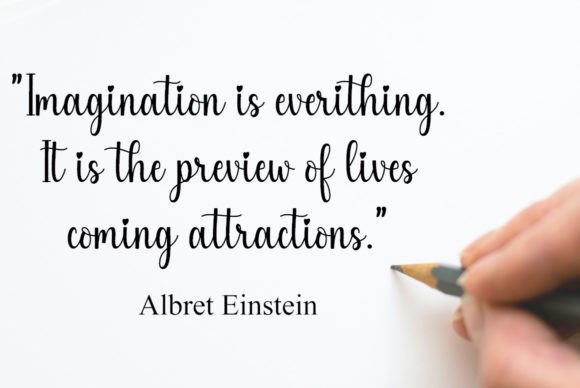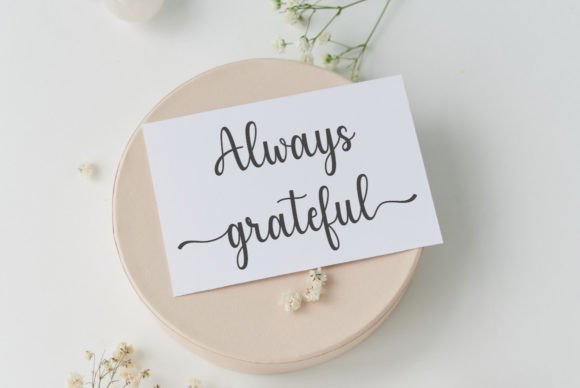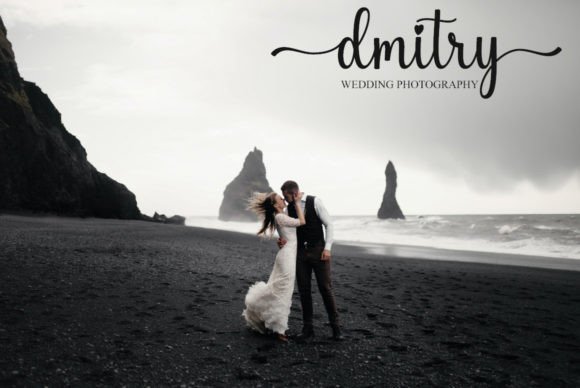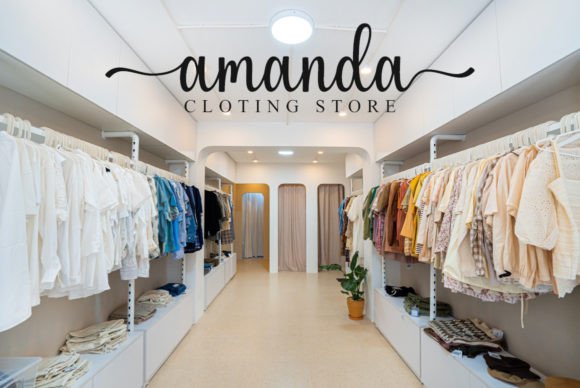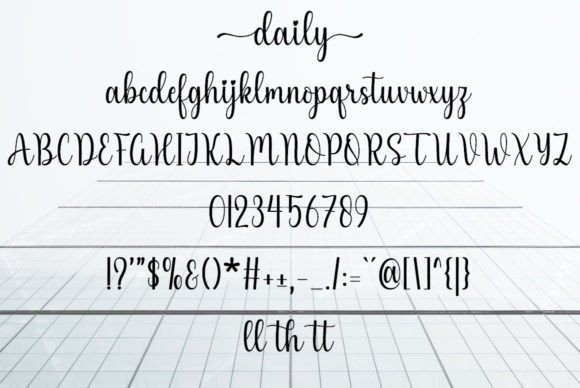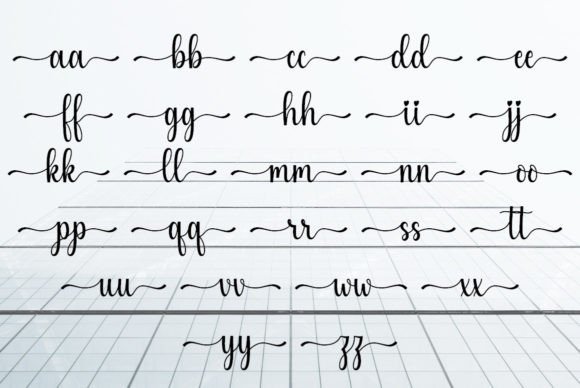
Introducing Daily Font: Elevate Your Designs with Elegance and Sophistication
In the world of typography, a well-crafted font can make all the difference in transforming a design from ordinary to extraordinary. For designers and crafters seeking to add a touch of elegance and sophistication to their projects, Daily Font is an exceptional choice. This stylish and incredibly elegant handwritten font is perfect for a variety of applications, from wedding invitations and thank you cards to quotes, greeting cards, logos, business cards, and more.
The Characteristics of Daily Font
Daily Font boasts a unique, handwritten aesthetic that exudes refinement and poise. Its elegant strokes and carefully crafted letterforms make it an ideal choice for designs that require a personal touch. Whether you’re creating wedding stationery, branding materials, or social media graphics, Daily Font is sure to impress.
One of the standout features of Daily Font is its PUA (Private Use Area) encoding. This means that users can easily access a wide range of glyphs and alternates, allowing for greater flexibility and creativity in their designs. With Daily Font, you can effortlessly customize your text to suit your project’s specific needs.
Daily Font’s versatility makes it an excellent addition to any designer’s toolkit. Here are just a few examples of how you can use this beautiful font:
- Wedding Invitations: Add a touch of romance and sophistication to your wedding stationery with Daily Font. Its elegant script is perfect for formal and informal wedding invitations alike.
- Thank You Cards: Express your gratitude in style with Daily Font. Its beautiful letterforms make it ideal for handwritten-style thank you cards and notes.
- Quotes and Graphics: Use Daily Font to create stunning quote graphics for social media, blogs, or marketing materials. Its elegant script adds a touch of sophistication to any quote or message.
- Greeting Cards: From birthday cards to holiday greetings, Daily Font is perfect for creating beautiful, handmade-style greeting cards.
- Logos and Branding: Establish your brand’s identity with Daily Font. Its unique, handwritten aesthetic can help your business stand out from the crowd.
- Business Cards: Make a lasting impression with Daily Font on your business cards. Its elegant script conveys professionalism and sophistication.
Why Choose Daily Font?
With so many fonts available, why choose Daily Font for your design projects? Here are just a few reasons:
- Elegant and Sophisticated: Daily Font’s unique, handwritten aesthetic adds a touch of elegance and sophistication to any design.
- Versatile: Use Daily Font for a wide range of design applications, from wedding invitations to logos and branding materials.
- PUA Encoded: Easily access a wide range of glyphs and alternates to customize your text.
In conclusion, Daily Font is an exceptional choice for designers and crafters seeking to add a touch of elegance and sophistication to their projects. Its unique, handwritten aesthetic, versatility, and PUA encoding make it an excellent addition to any designer’s toolkit. Whether you’re creating wedding stationery, branding materials, or social media graphics, Daily Font is sure to impress. So why wait? Download Daily Font today and elevate your designs to new heights!